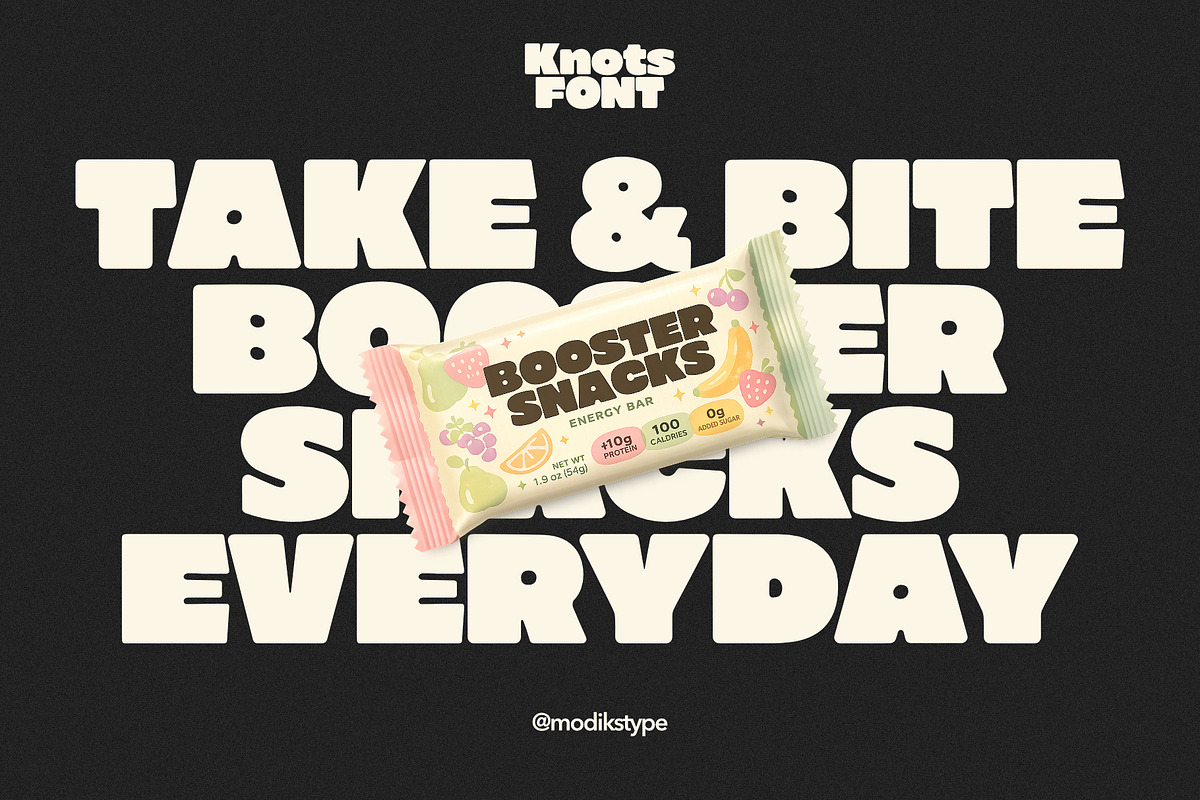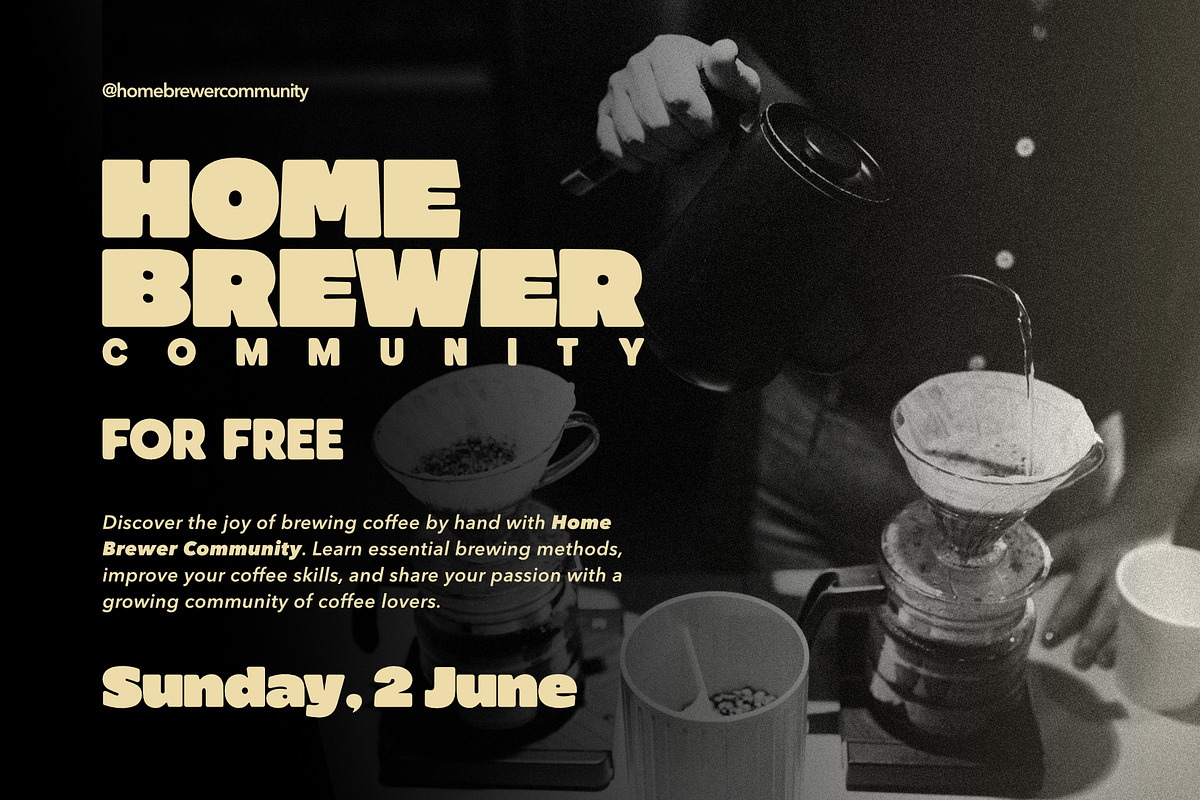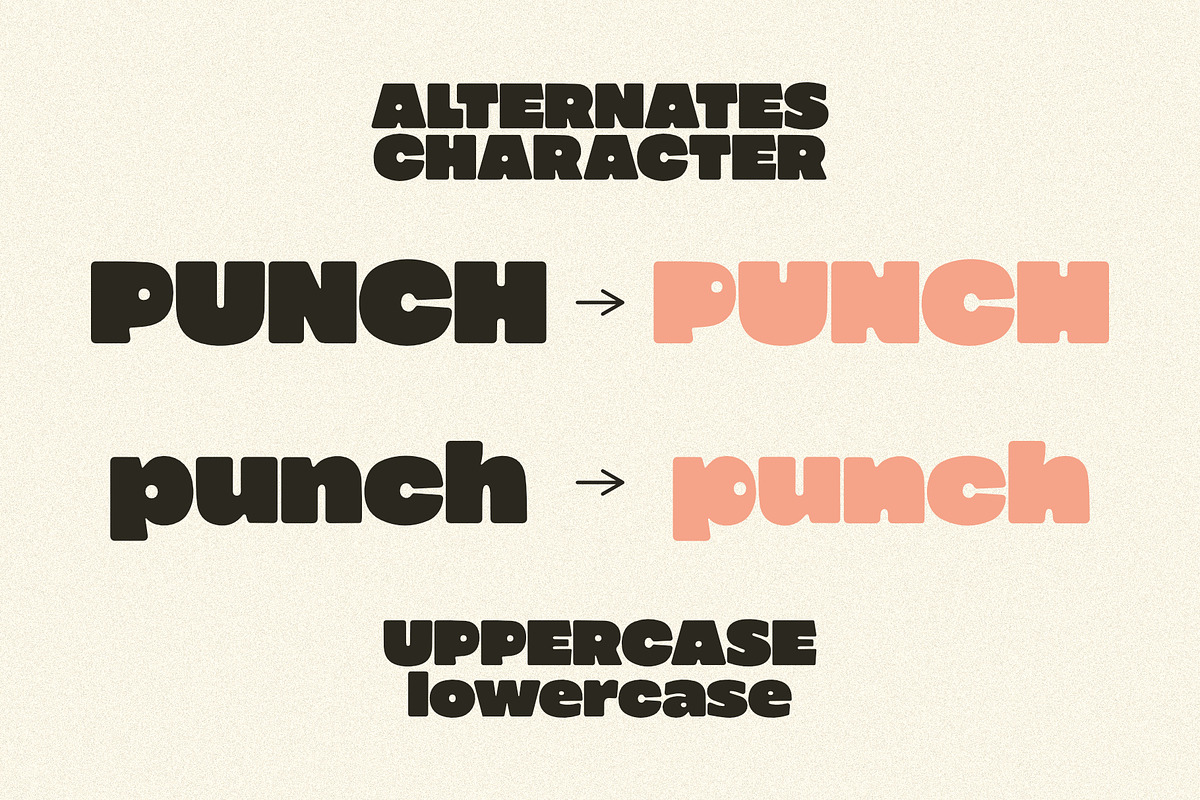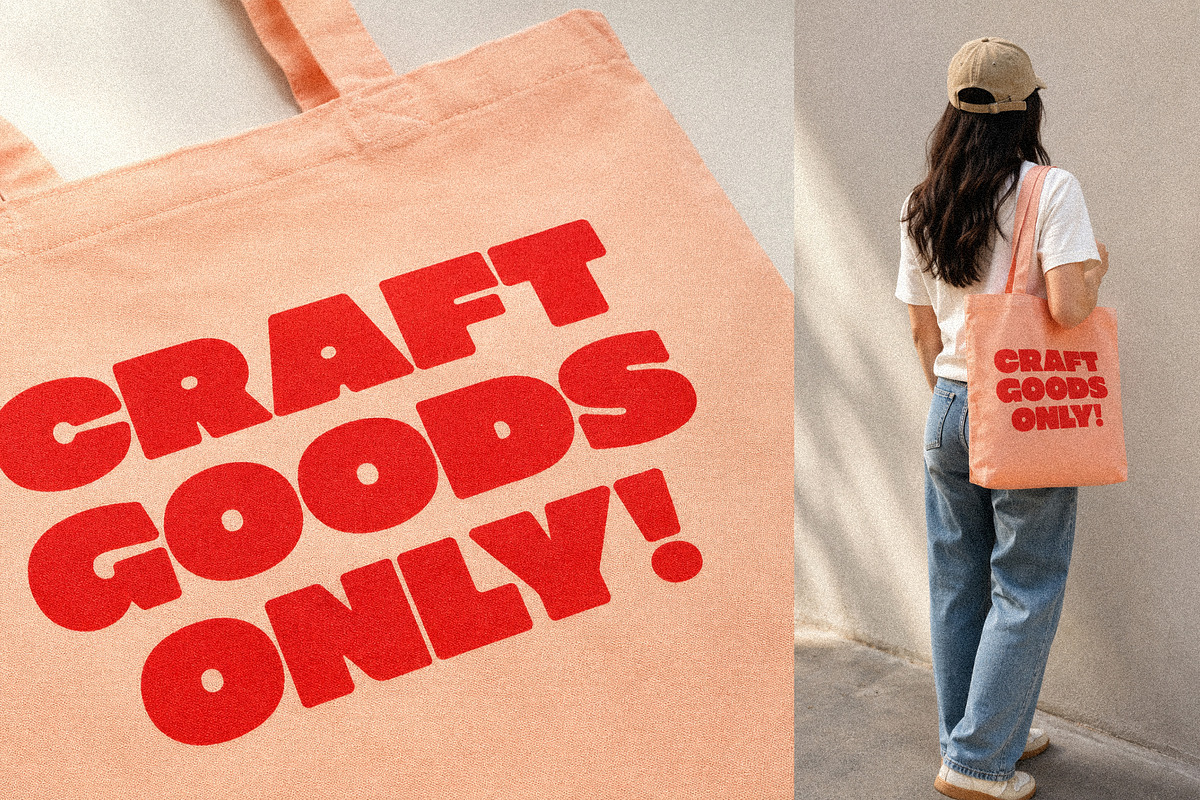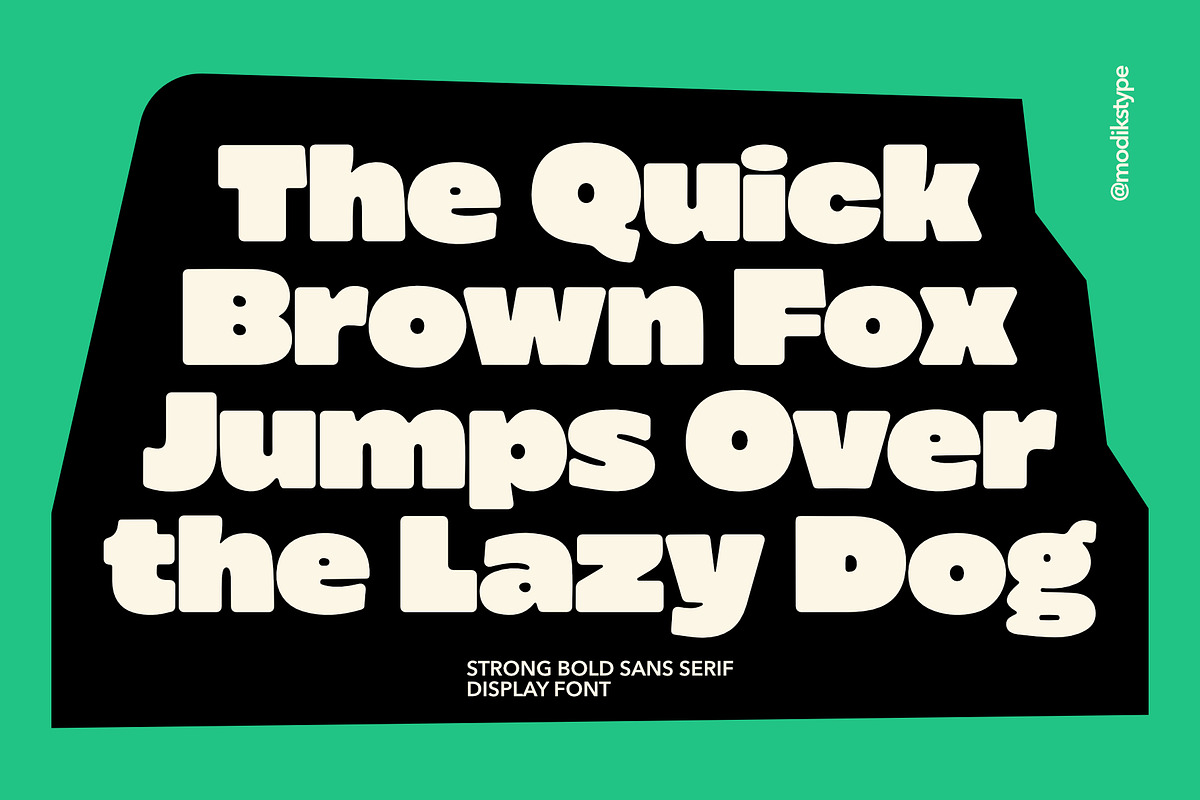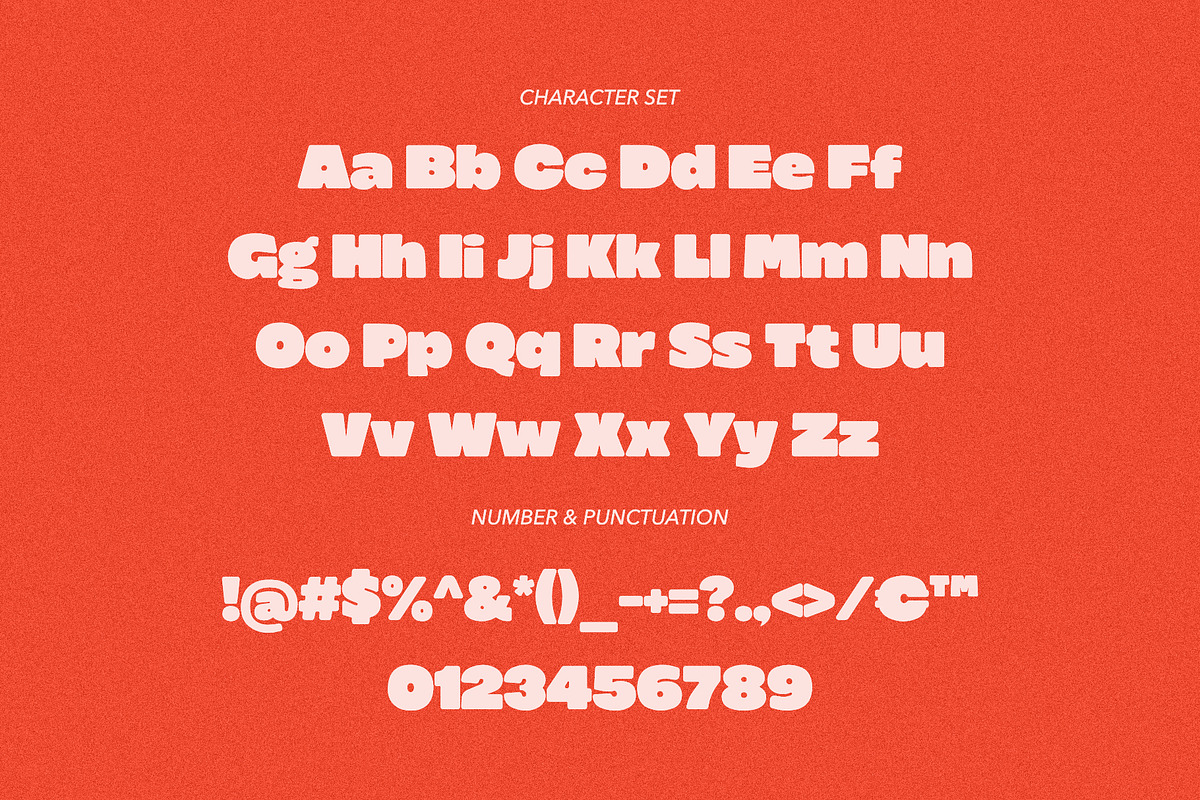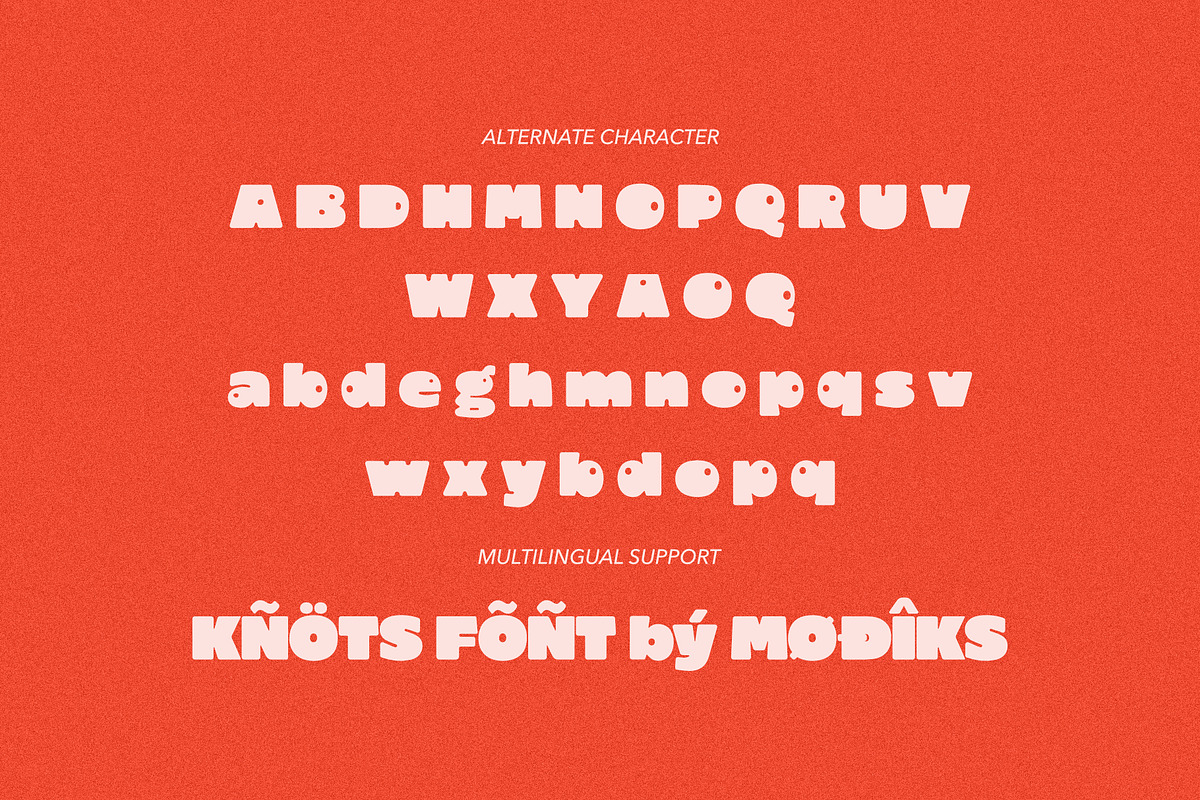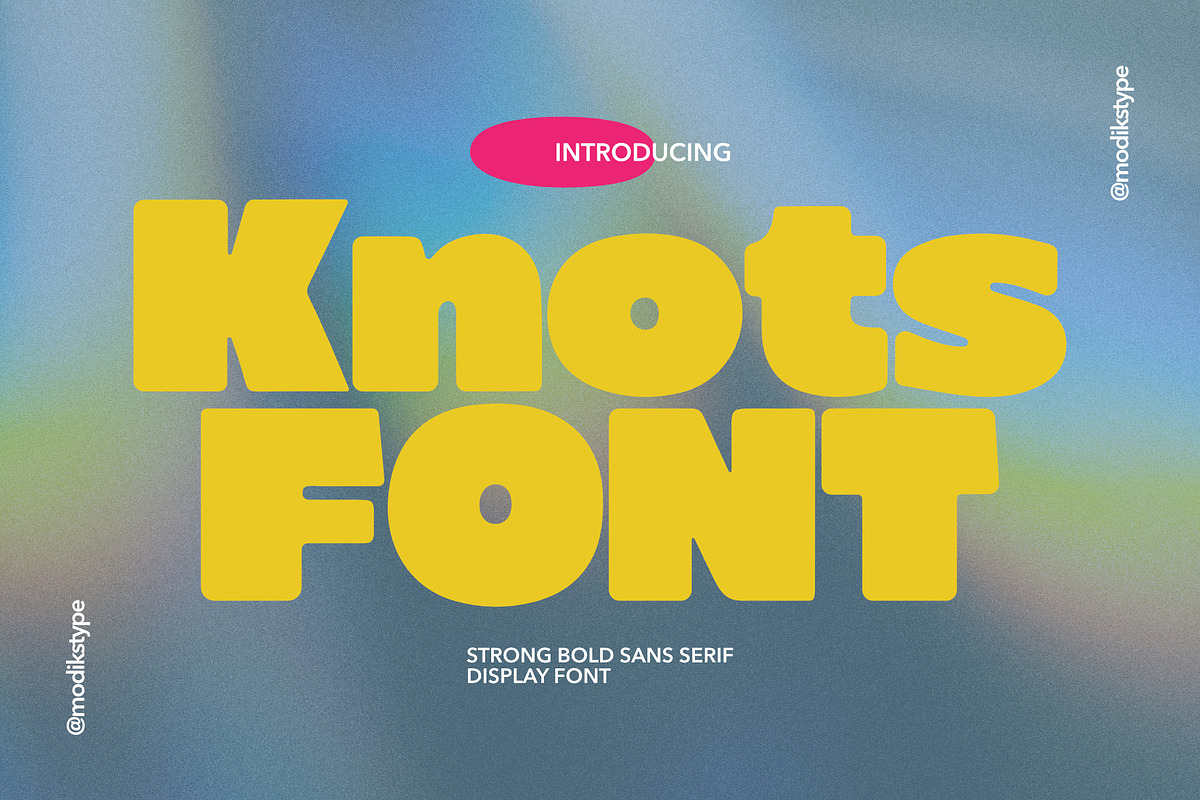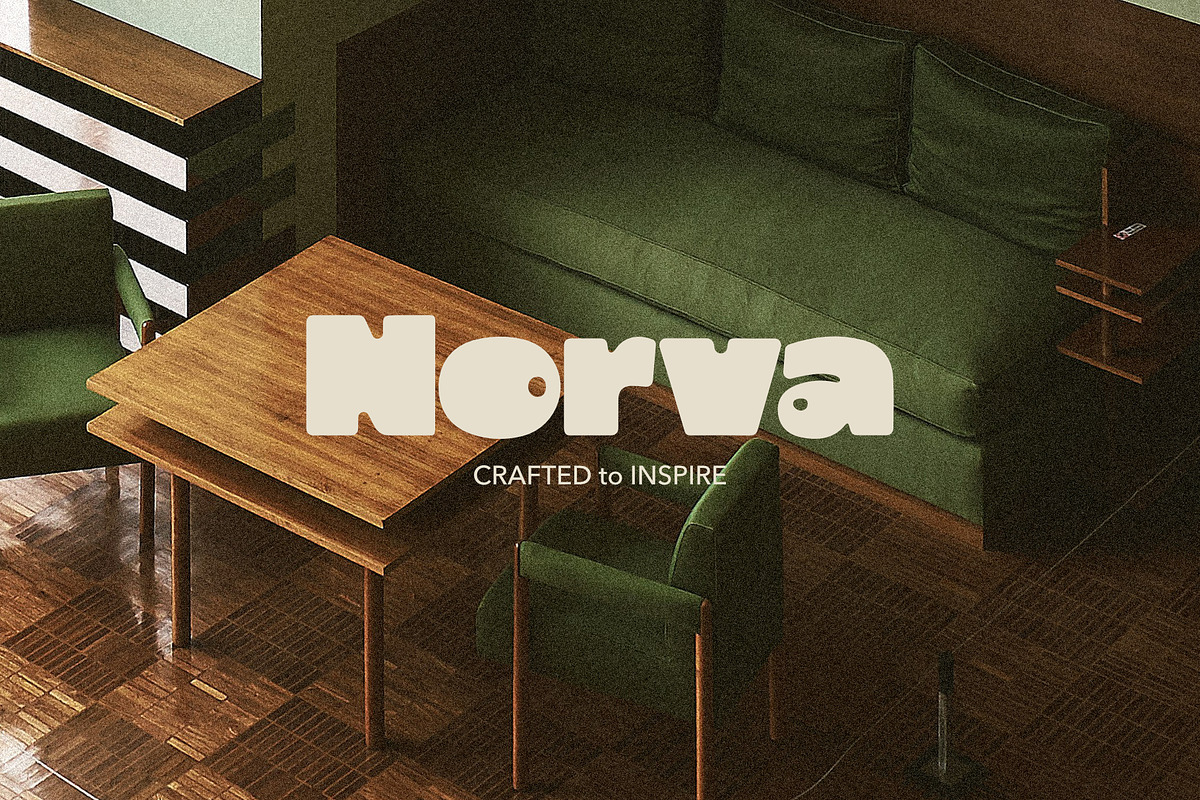
Knots Strong Bold Sans
Knots is a strong, bold, and playful display font designed to make a statement. With its chunky letterforms, smooth curves, and retro-inspired personality, Knots brings a fun yet powerful presence to any design project.
Perfect for branding, packaging, posters, headlines, social media graphics, logos, merchandise, children's products, food packaging, and editorial designs. Its eye-catching style ensures maximum impact while maintaining excellent readability.
Whether you're creating a nostalgic retro aesthetic, a modern playful brand, or bold marketing materials, Knots delivers the confidence and character your designs need.
Branding & Logo Design
Food & Beverage Products
Posters & Flyers
Social Media Content
Merchandise & Apparel
Children's Products
Editorial Headlines
Creative Marketing Materials
Bring bold energy and playful charm to your next creative project with Knots.